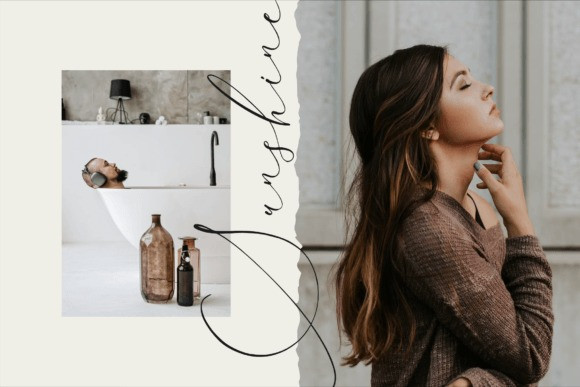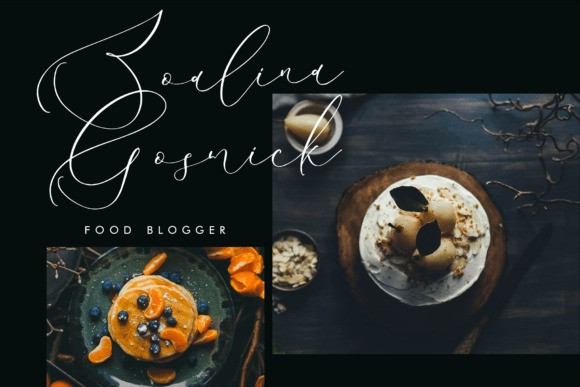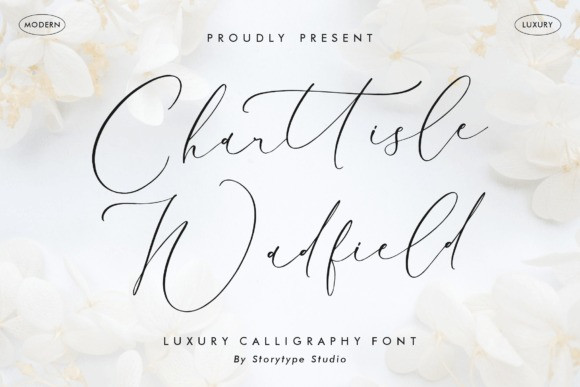
Charttisle Wadfield Font
Charttisle Wadfield Font is a luxury calligraphy font that has own unique style & modern look. This typeface is perfect for an elegant & luxury logo, book or movie title design, fashion brand, magazine, clothes, lettering, quotes, and so much more.